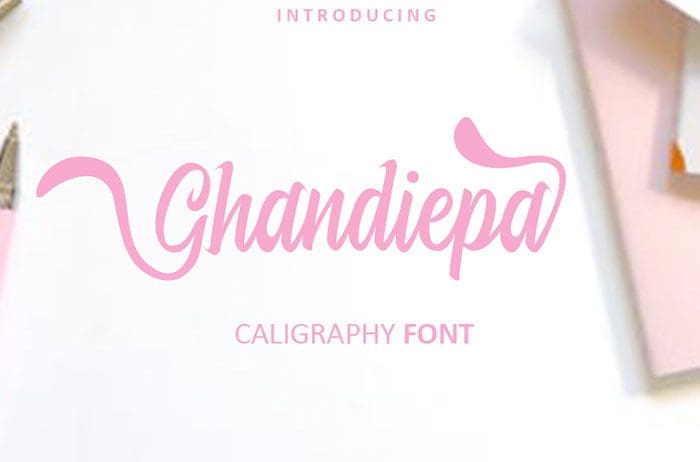
Free Ghandiepa Script Font
Free Ghandiepa script font embodies cuteness, playfulness, and authenticity. This enchanting script font will turn any creative idea into a true standout. Designed this font by Inermedia Studio. You can also search more freeĀ Script Fonts.
Free Ghandiepa Script Font